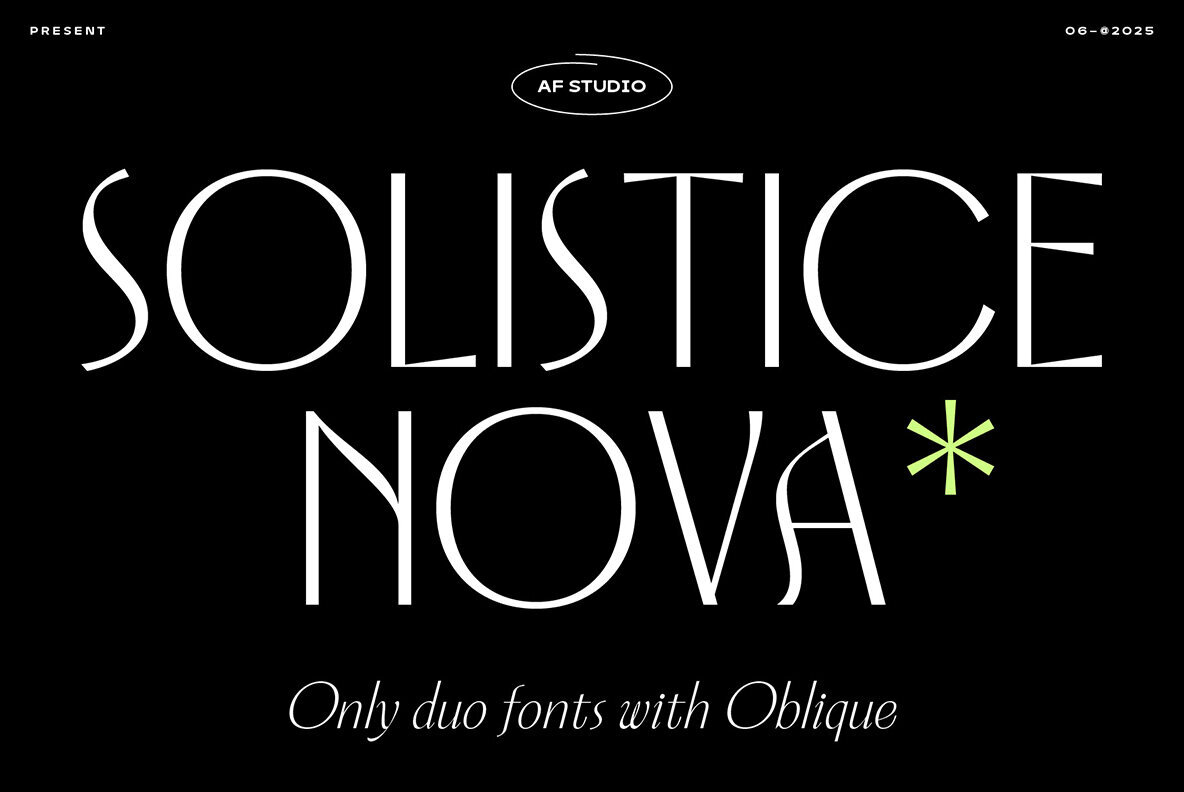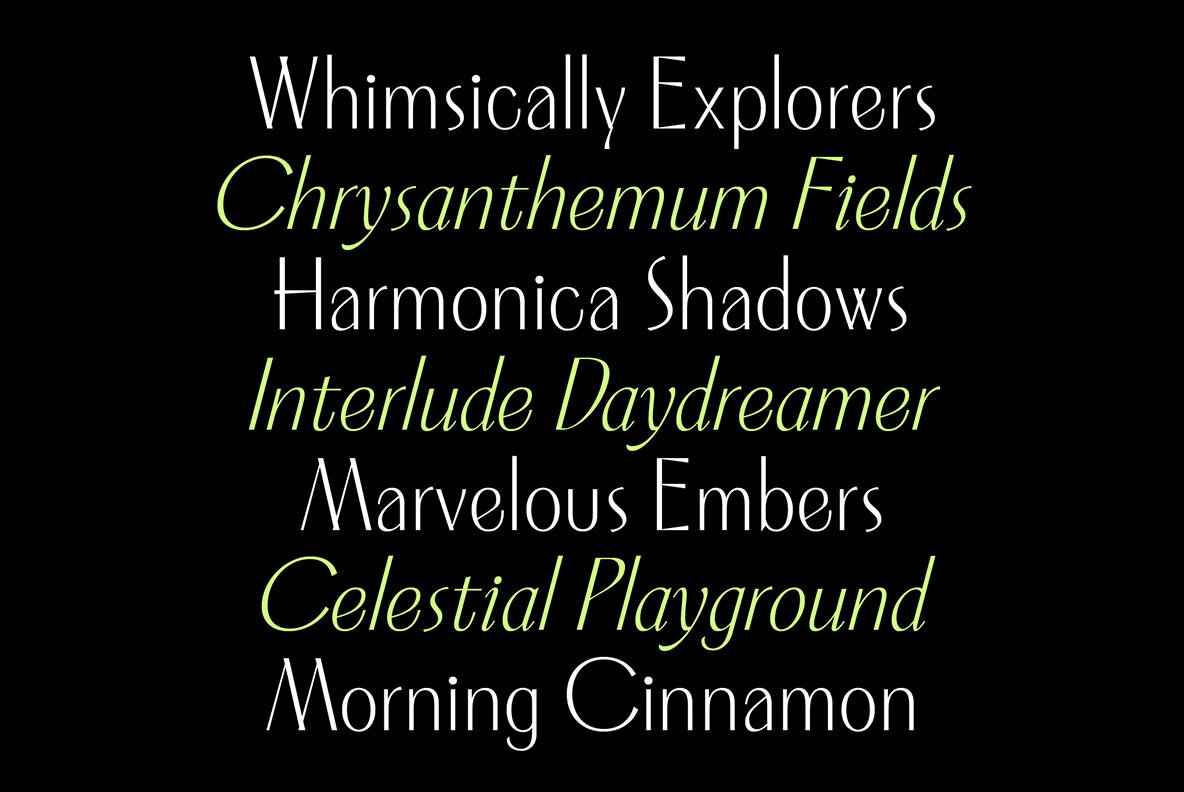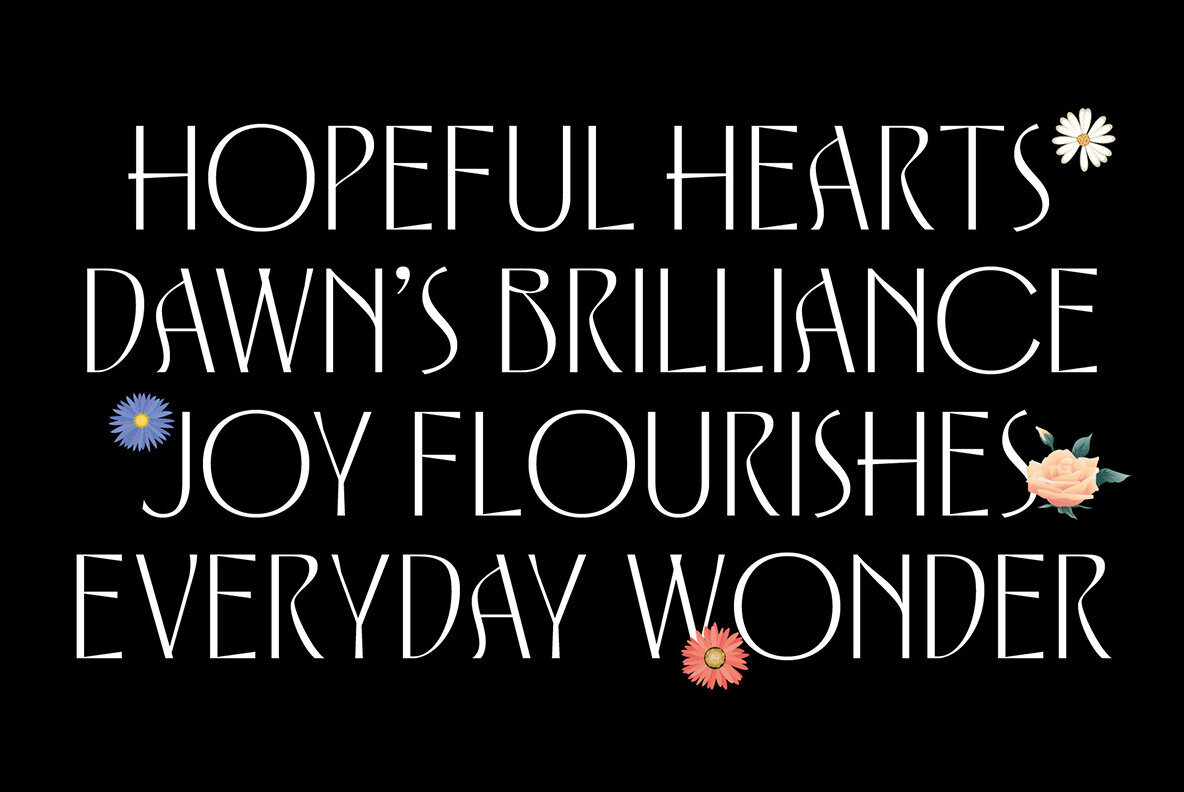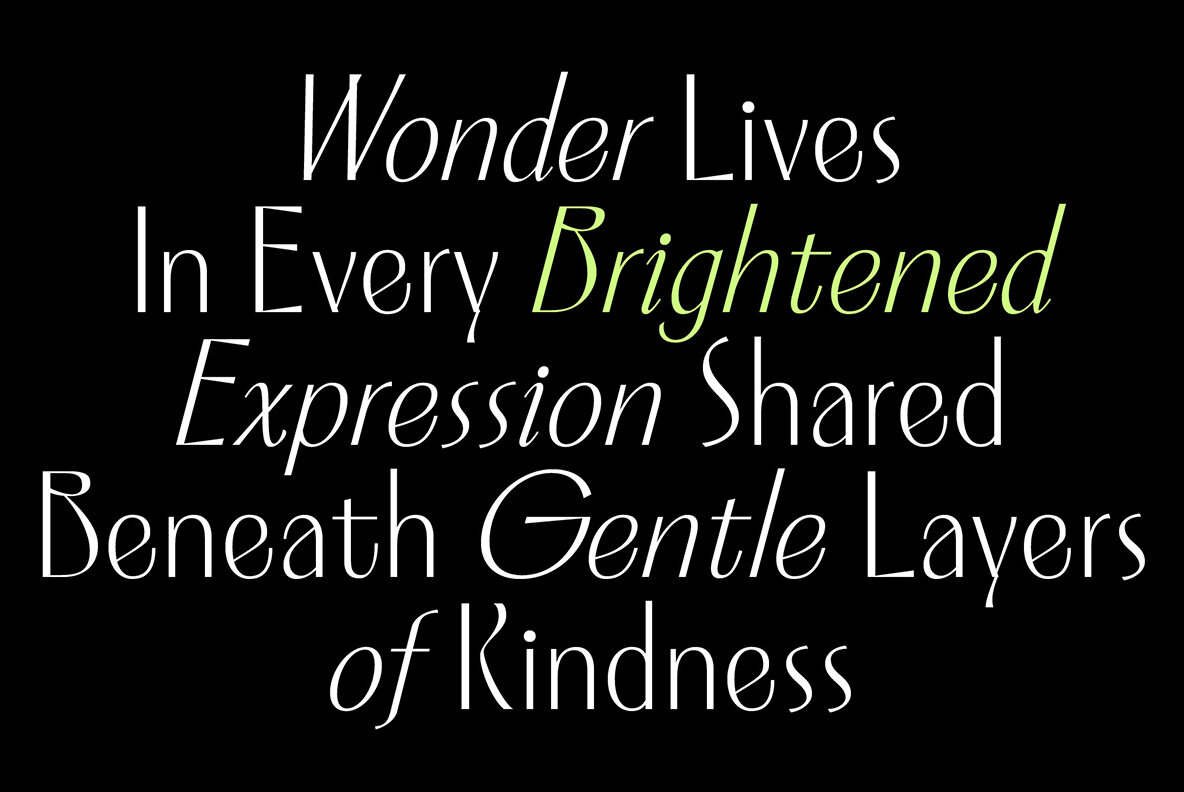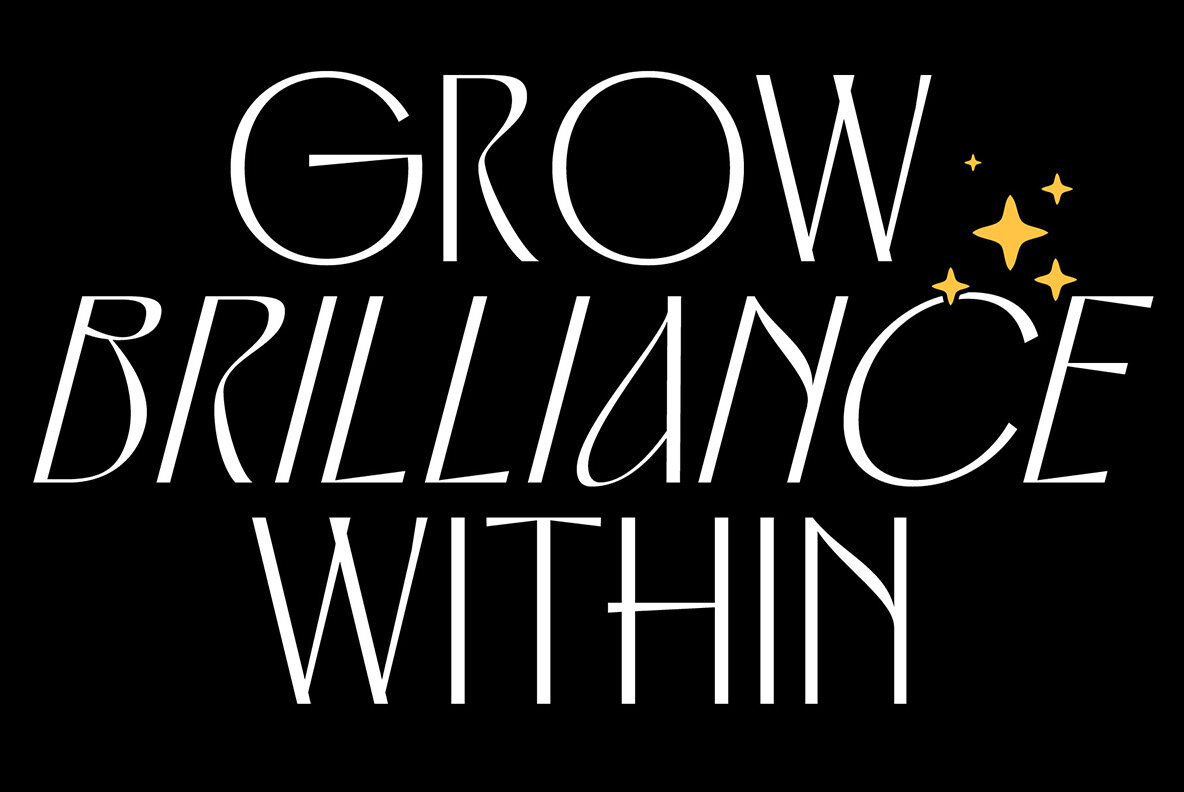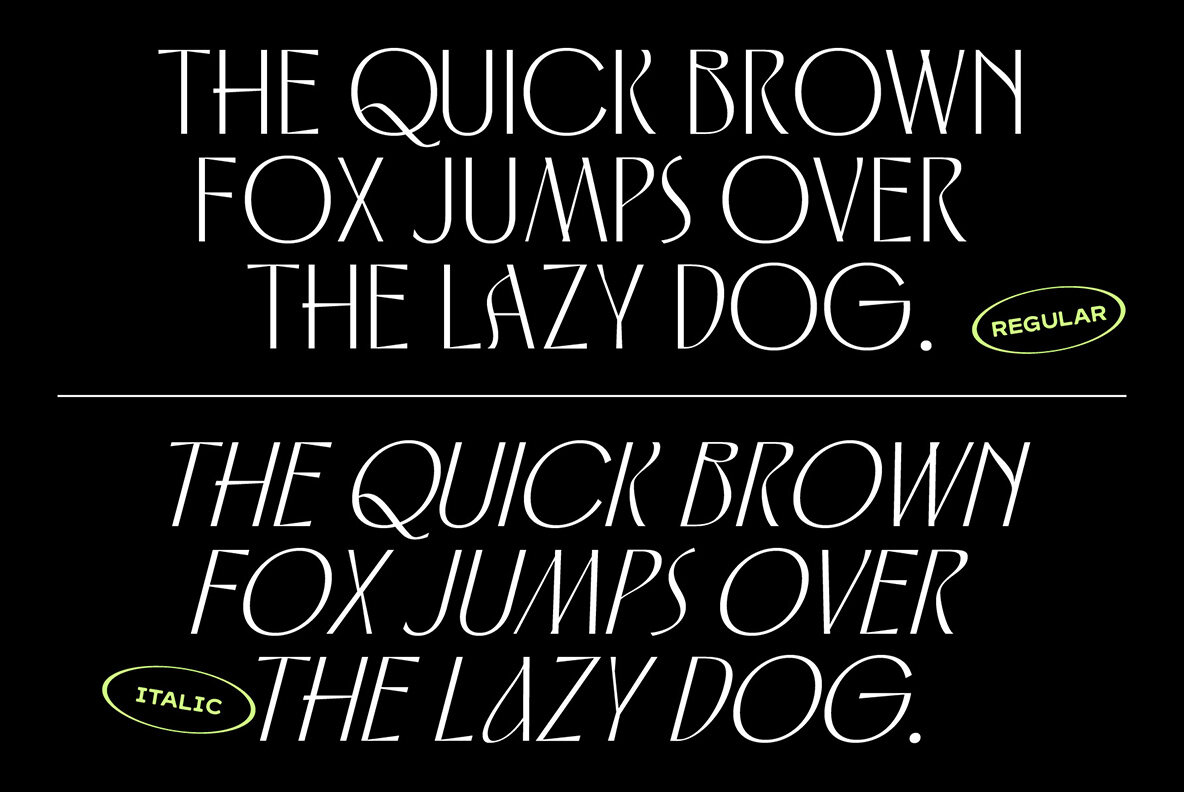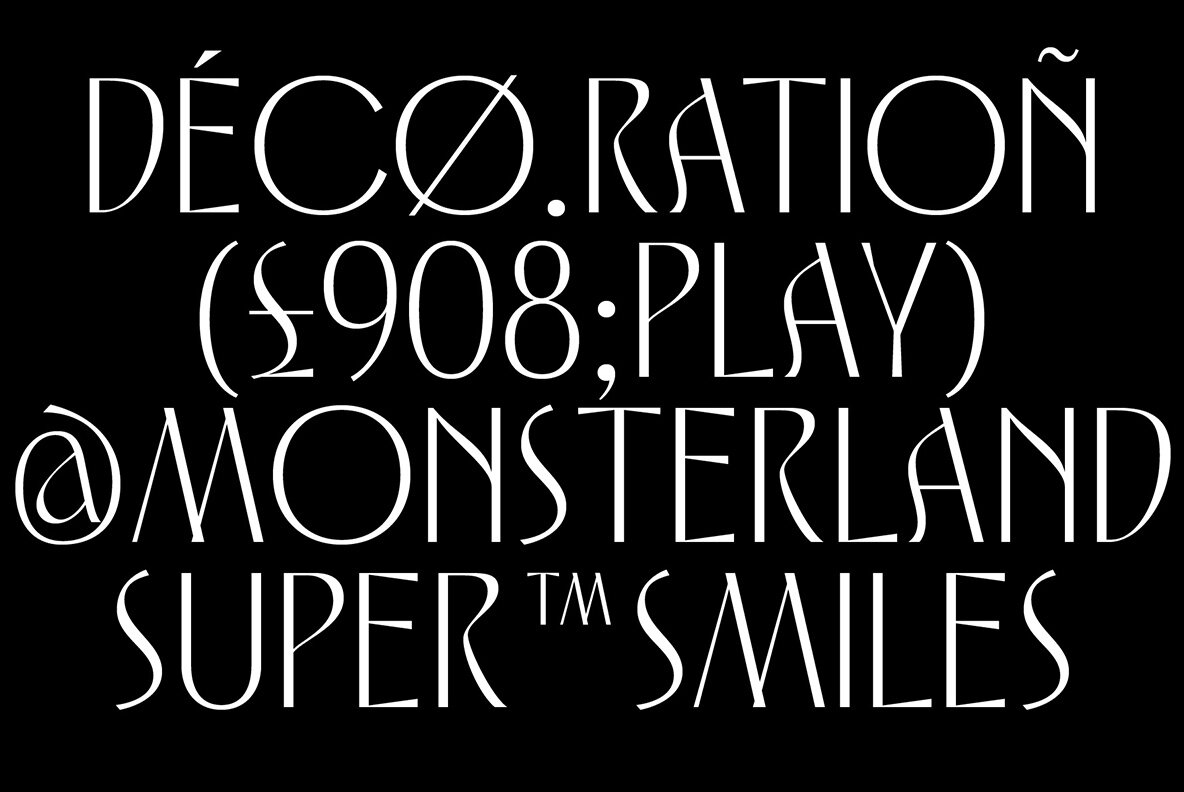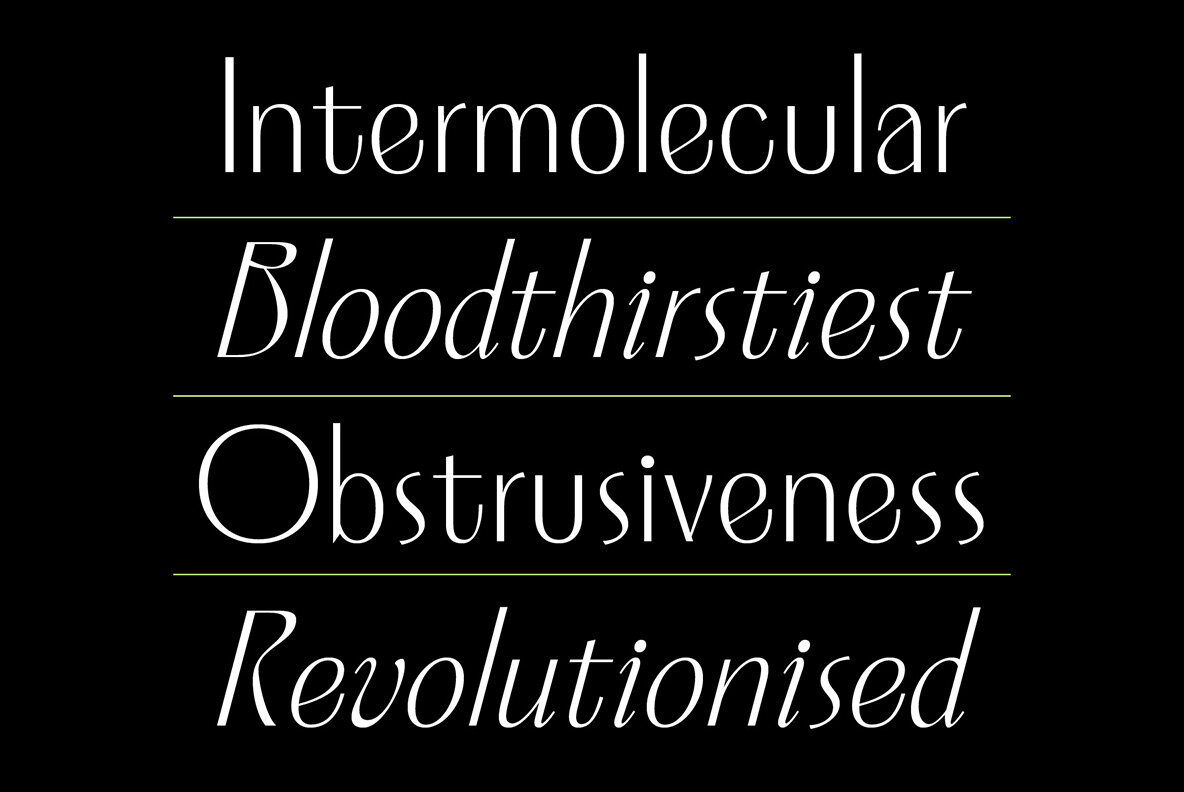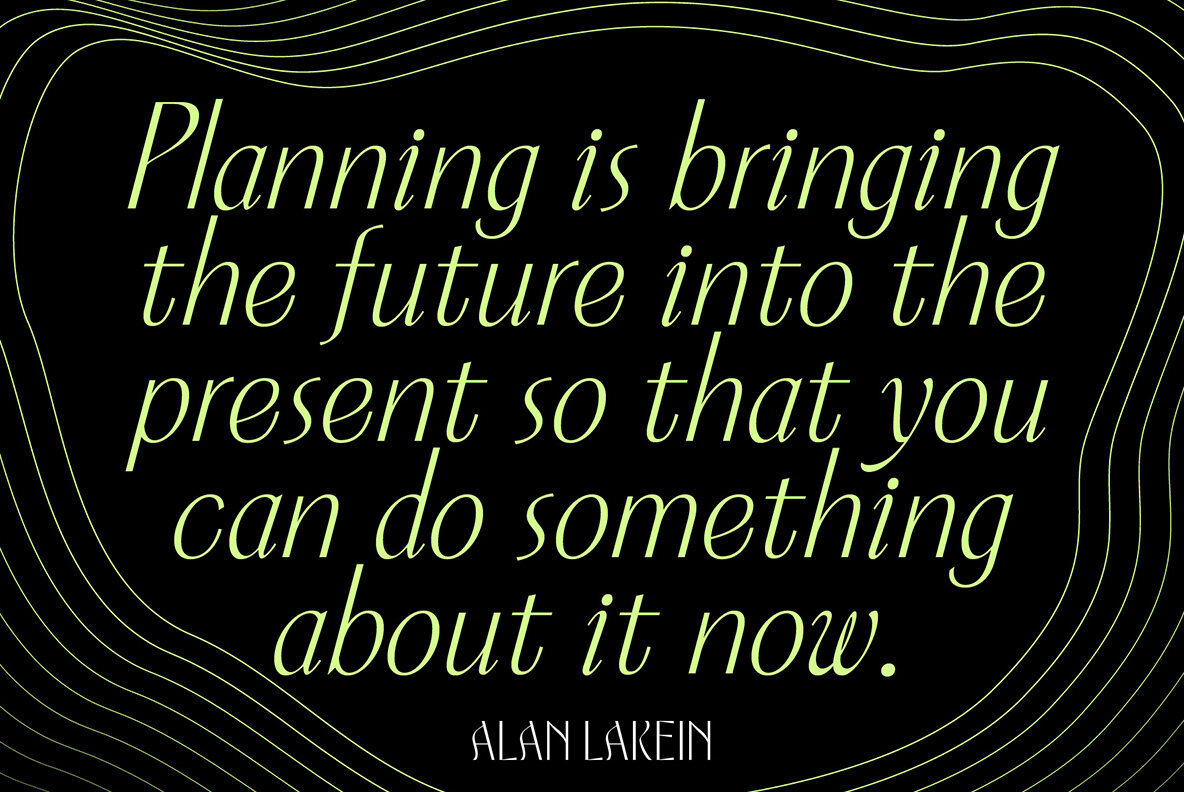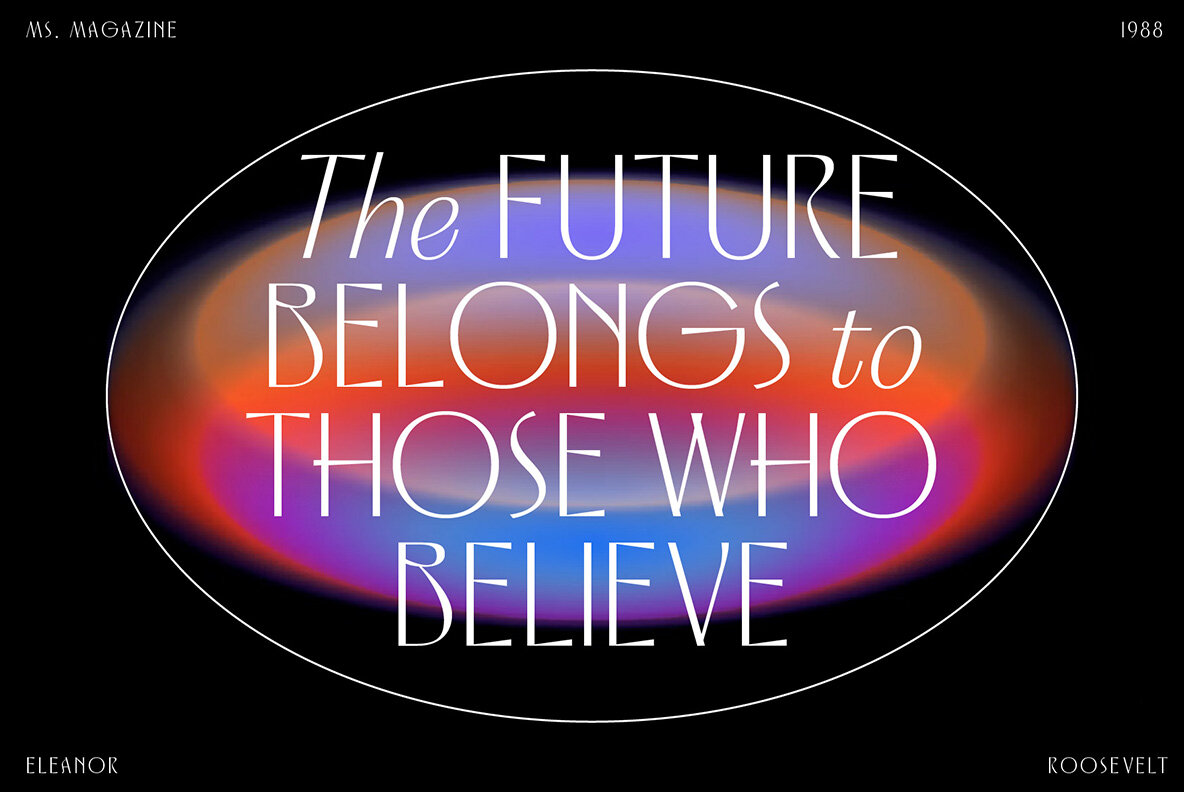
Solistice Nova Font
Solistice Nova Regular
Solistice Nova Oblique
Solstice Nova Duo offers a striking harmony of regular and oblique styles, making it a versatile addition to any designer’s toolkit. Its geometric structure and subtle nuance reflect a sophisticated approach to type design, allowing for seamless integration into branding, editorial projects, and digital graphics. This font’s adaptability ensures a balanced aesthetic that remains approachable yet fresh, meeting the demands of both contemporary and classic settings. Created with multilingual support, Solstice Nova Duo operates as a reliable option for global projects. Its expressive character grants typographic variety while maintaining coherence across different applications. The lively yet controlled design brings a sense of curiosity to headlines, logos, and promotional materials, allowing the font to suit projects that call for distinction and clarity.Solstice Nova Duo: Expressive Typeface With Modern Flair